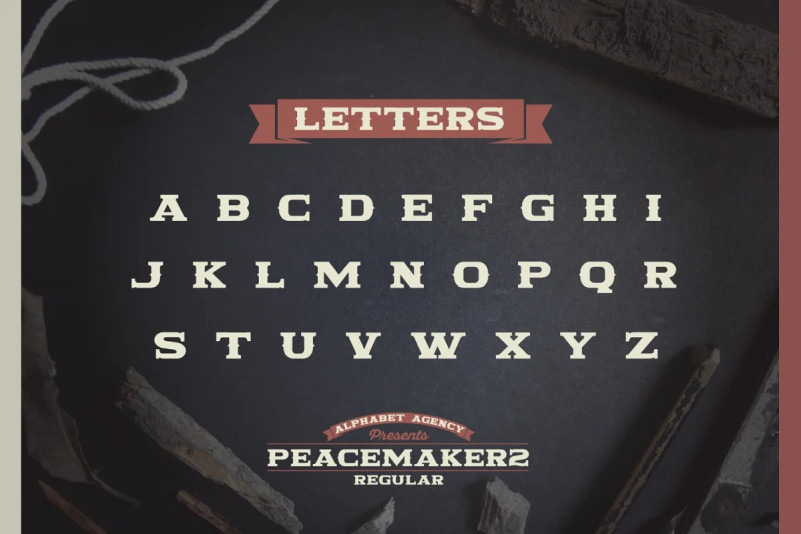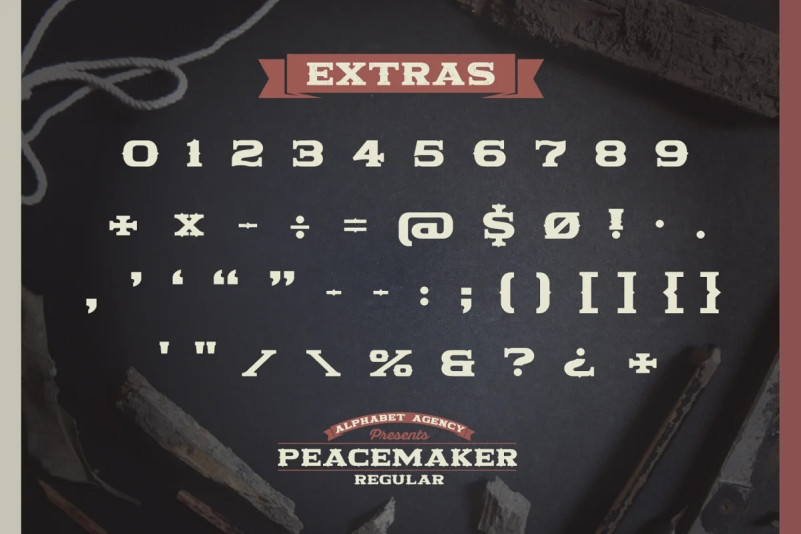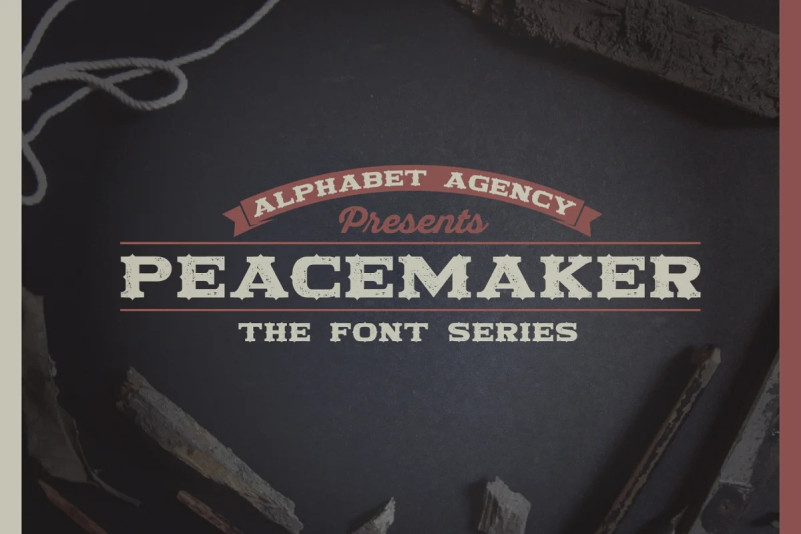
Peacemaker Font
Peacemaker Vintage Font is a cool, bold and vintage styled display font. No matter the topic, this font will be an incredible asset to your fonts’ library, as it has the potential to elevate any creation.